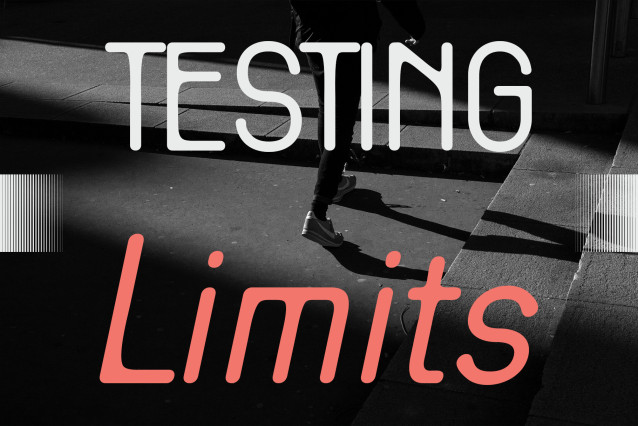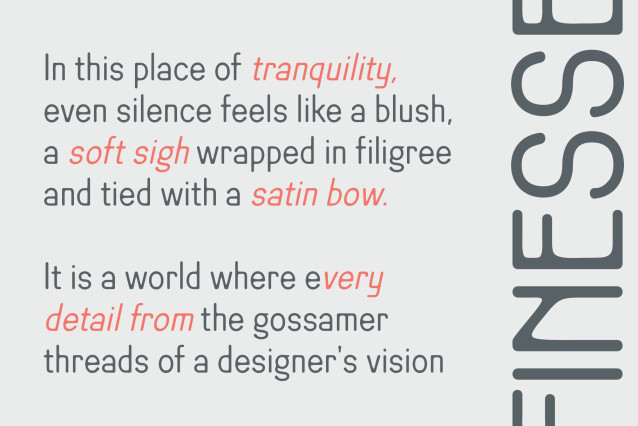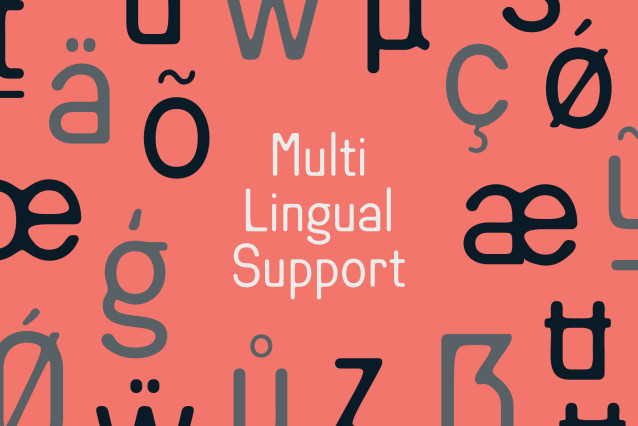
Remond Rounded Drawn Font
Remond Rounded Drawn – A Condensed Retro Sans with Handcrafted Warmth
Clean Structure with a Friendly Twist
Remond Rounded Drawn is a sans serif font that merges sleek condensed proportions with gently rounded corners, striking a balance between modern precision and approachable charm. Its classic sans-serif structure lends it a sense of clarity and timelessness, while the rounded terminals soften its appearance, making the font feel more welcoming and versatile.